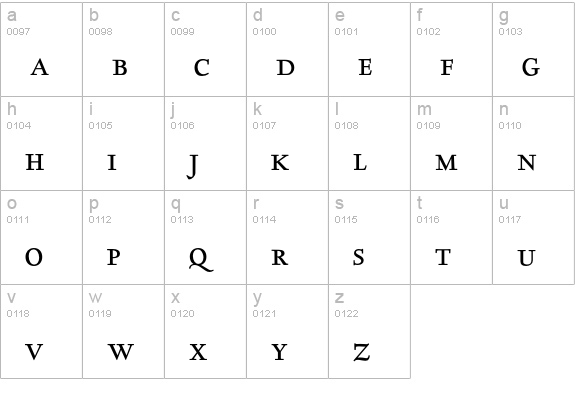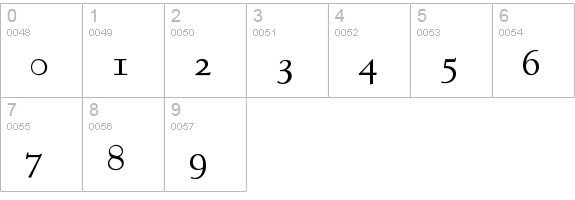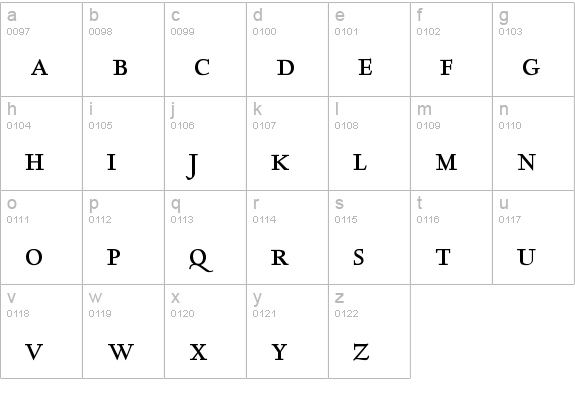
KaatskillH-SC font is a stunning display font that exudes elegance and sophistication. Its unique and intricate design is sure to captivate any reader and make a lasting impression. With its tall and slender letterforms, this font adds a touch of modernity to any project. What sets KaatskillH-SC font apart is not just its striking appearance, but also its versatility. Whether you're designing a logo, creating a poster, or crafting an eye-catching headline, this font will elevate your work to new heights. Its clean lines and well-balanced proportions ensure that every character stands out with clarity and precision. One of the best parts about KaatskillH-SC font is that it is free! Yes, you read that right. You can freely download this incredible font at FontsMarket.com. This means that you don't have to worry about breaking the bank to access this high-quality typeface. It is a fantastic opportunity to enhance your designs without any cost. The beauty of KaatskillH-SC font lies not only in its aesthetics but also in its ease of use. Its wide range of characters and symbols make it suitable for various languages and applications. Whether you're designing for print or web, this font guarantees seamless integration and readability across different mediums. Don't miss out on the chance to elevate your design projects with KaatskillH-SC font. Download it for free at FontsMarket.com and unlock a world of design possibilities.